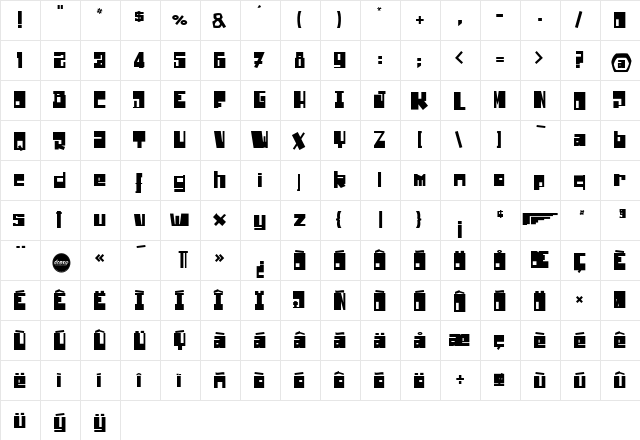
Drone Nation Regular
Design Context for Drone Nation Typeface
Drone Nation is a composed and adaptable typeface that performs quietly and consistently across a wide range of design contexts.